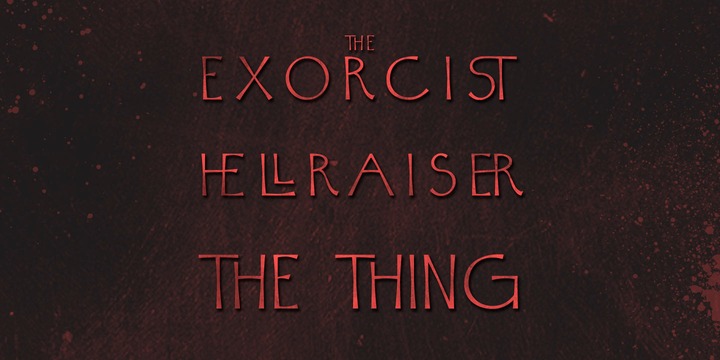
Vexilla
by Kidstudio
Inspired by ancient carved writings, Vexilla is born from the XXXIV Chant of the Dante’s Inferno. A full-caps typeface suitable for various projects, display lettering and posters.